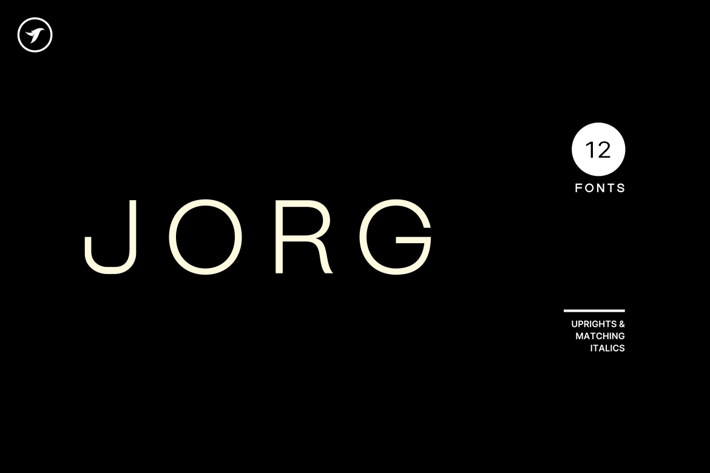
JORG - Modern and Minimalist Display Font Family
ABOUT THE FONT FAMILY:
JORG is a modern, minimal font family that is perfect for branding, logotypes, headlines, corporate identities, and marketing materials, suitable for both web and print formats. This all-caps typeface offers efficient letter spacing options providing endless possibilities for contemporary and minimalist creations, including logos, headlines, and identities.
Thanks to its efficient letter spacing options, this versatile font offers endless possibilities for modern and minimalist designs, including logos, headlines, and identities. Please see the included demo graphics to get an idea about the capability of this typeface when used for branding and marketing material design.
The JORG font family comes with 12 fonts, including 6 upright weights (THIN / LIGHT / REGULAR / SEMIBOLD / BOLD / HEAVY) as well as Italic versions of all 6 weights. Each weight includes extended language support including Western European & Central European sets. A total of 336 glyphs are included.
FEATURES:
JORG font family includes a collection of 12 fonts in total, with six upright weights and Italic equivalents of all six weights as follows:
- Thin
- Thin Italic
- Light
- Light Italic
- Regular
- Italic
- SemiBold
- SemiBold Italic
- Bold
- Bold Italic
- Heavy
- Heavy Italic
336 GLYPHS INCLUDED:
Handcrafted and designed with powerful OpenType features in mind, each weight includes extended language support with Western European, Central European, and South Eastern European sets. A total of 336 glyphs are available.
Scripts: Latin